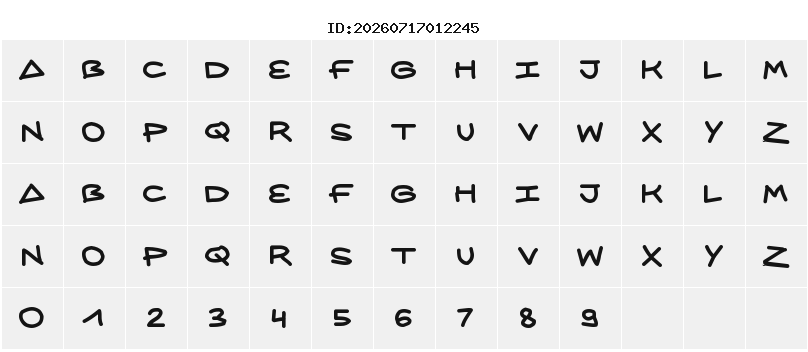
• Font Name: AQZ crew
• Full Font Name: AQZ crew
• Copyright: Font designed by Télé for all the AQZ crew " Koa Slack Scaner Argo Zebre Ibiza "
AQZ crew.ttf is a modern, elegant sans-serif font designed for ultimate readability and visual harmony. Perfect for branding, headlines, web design, and print materials.